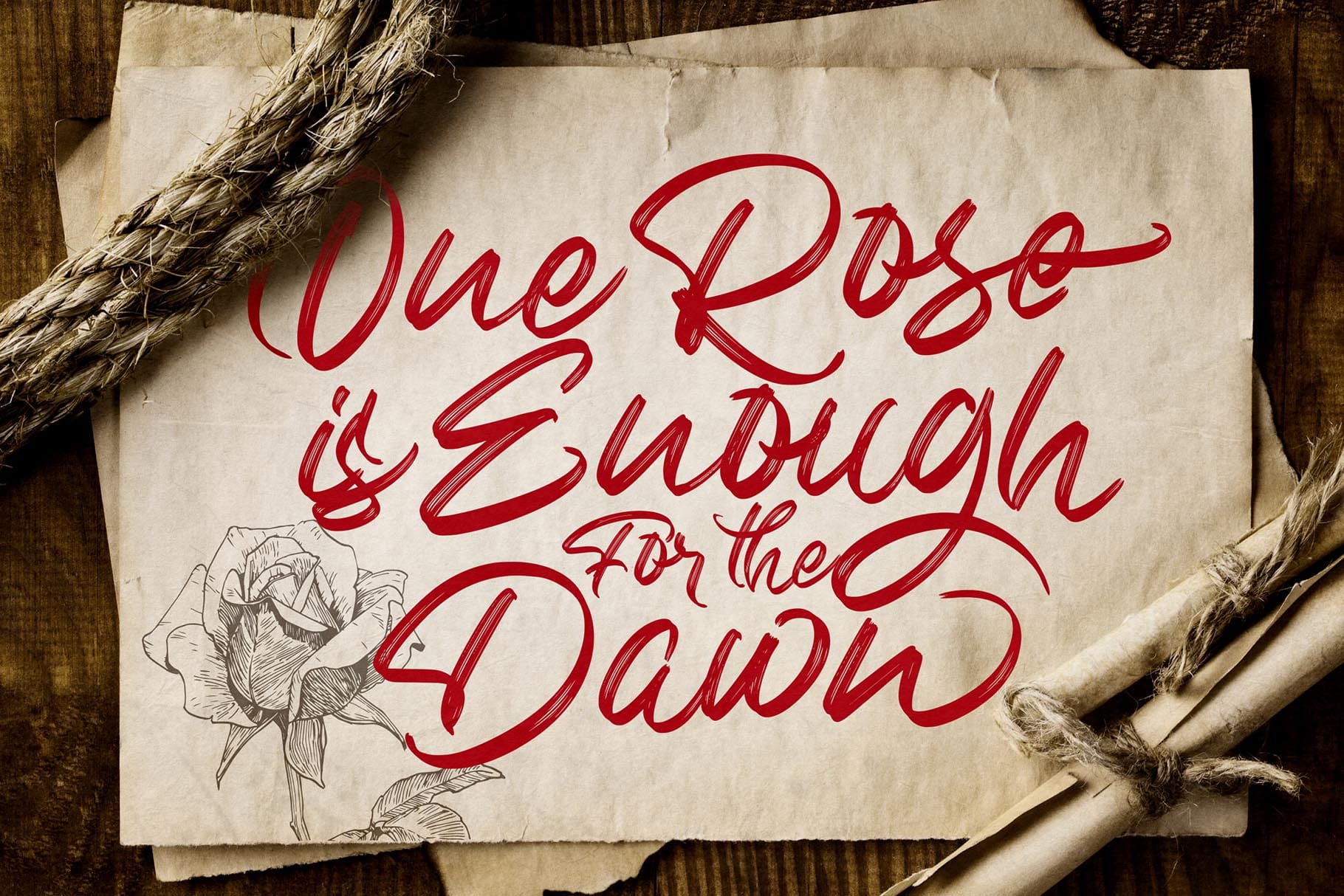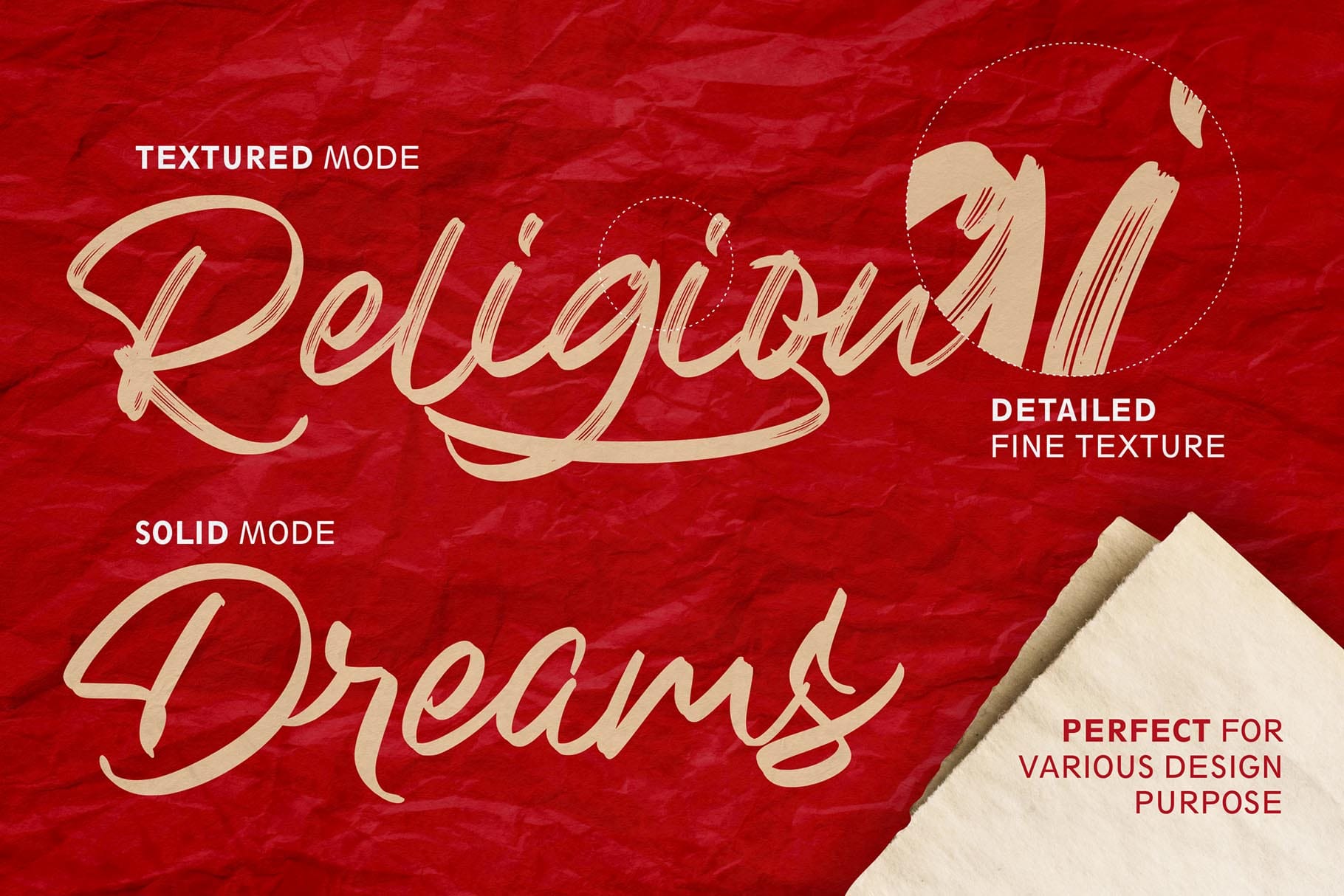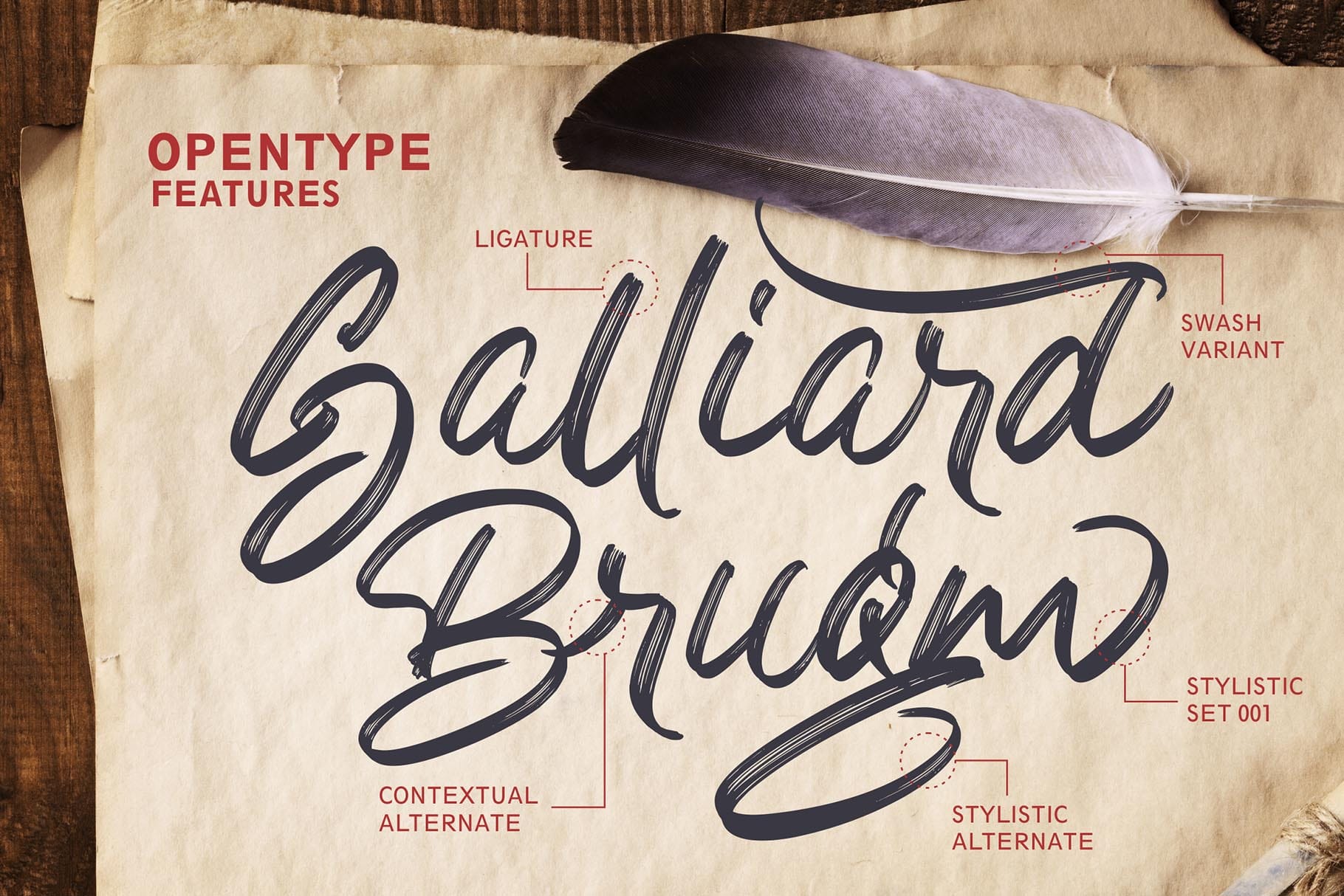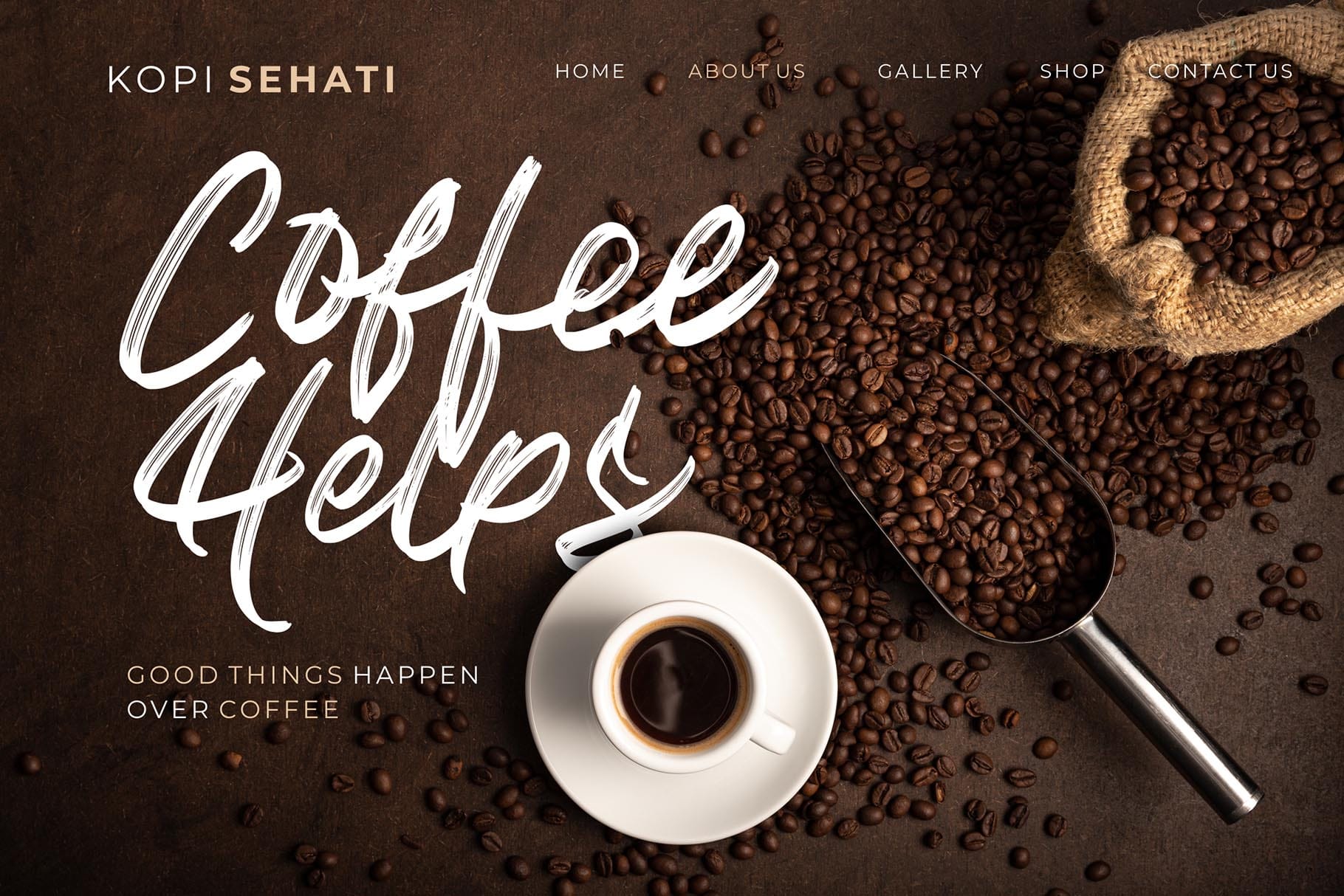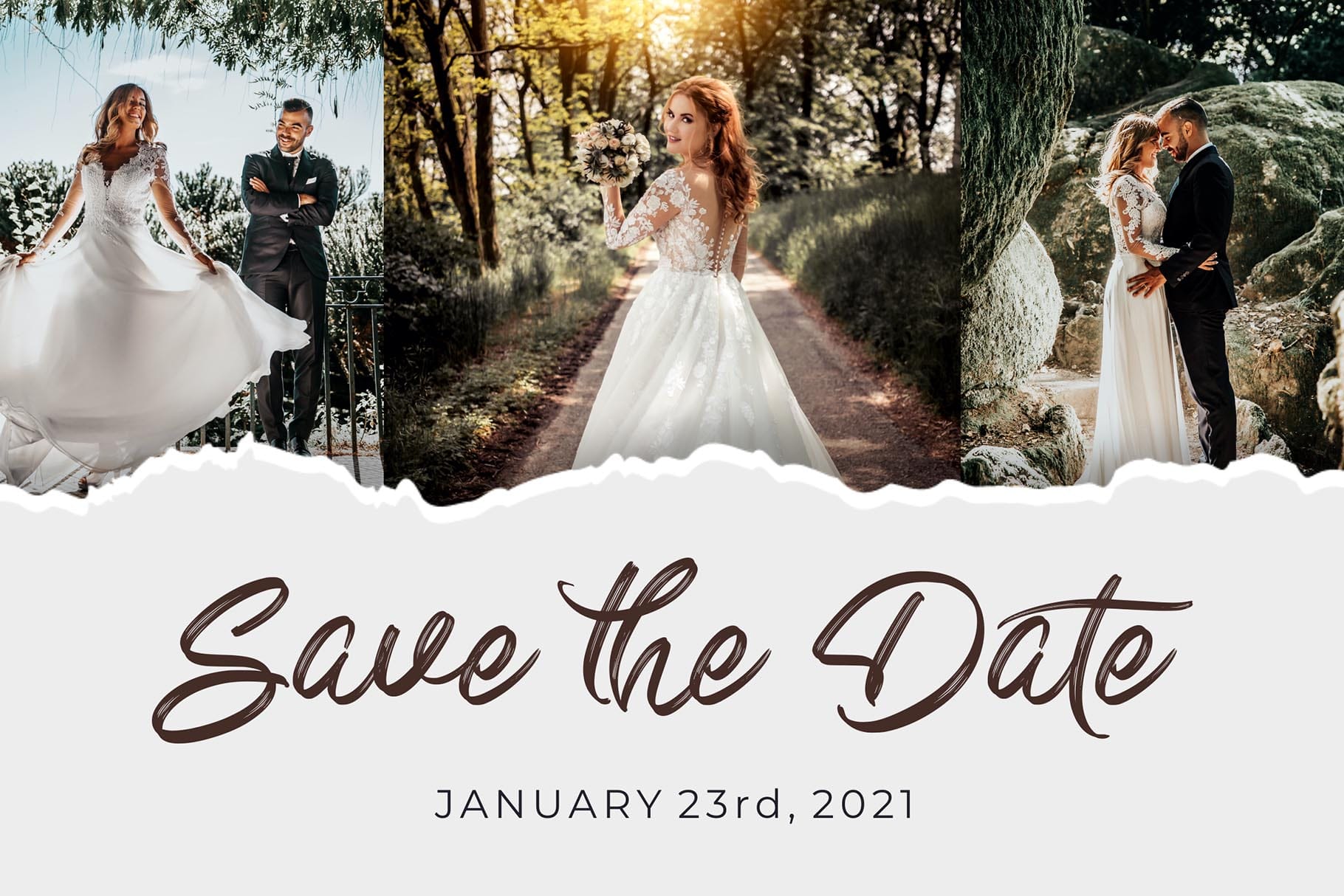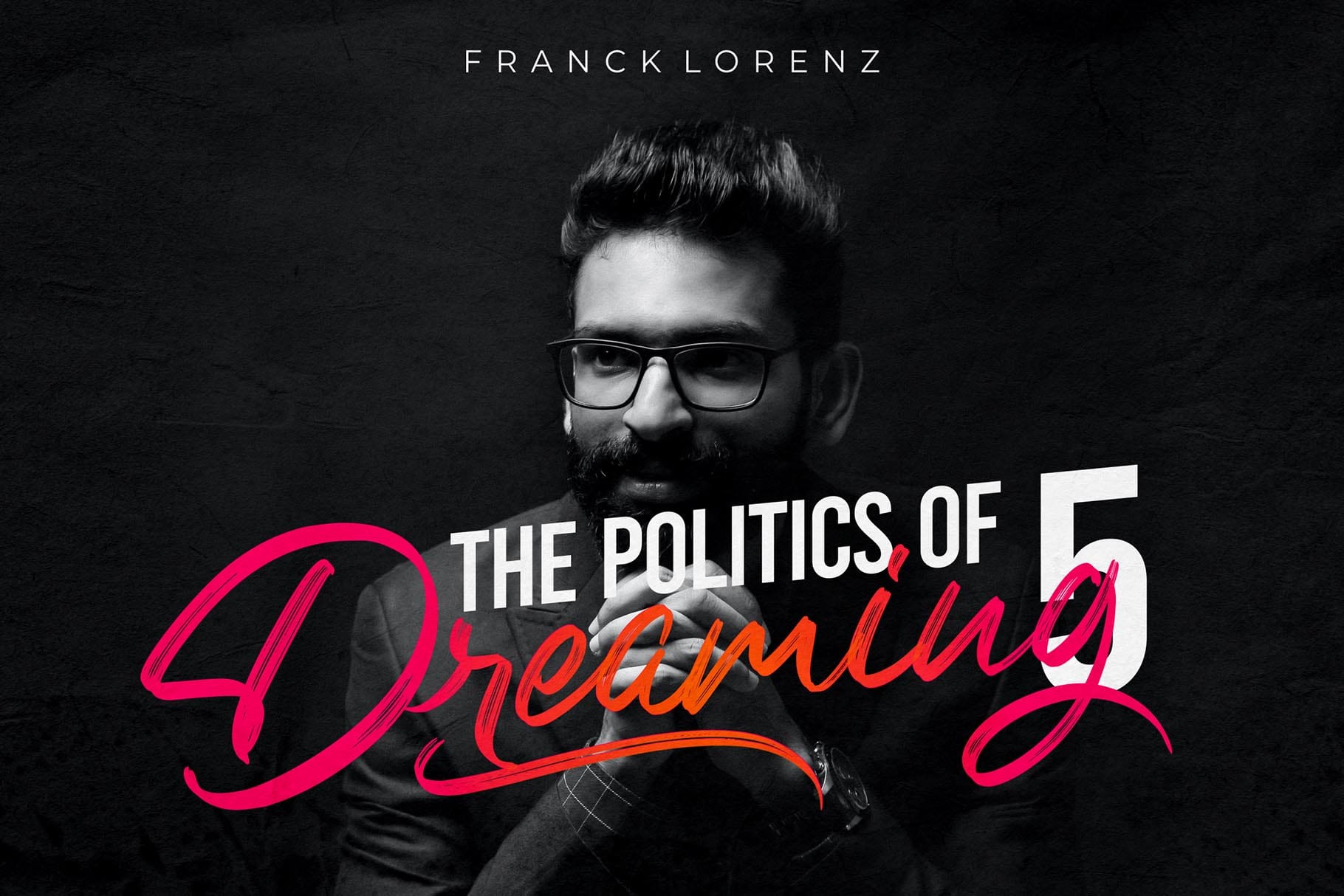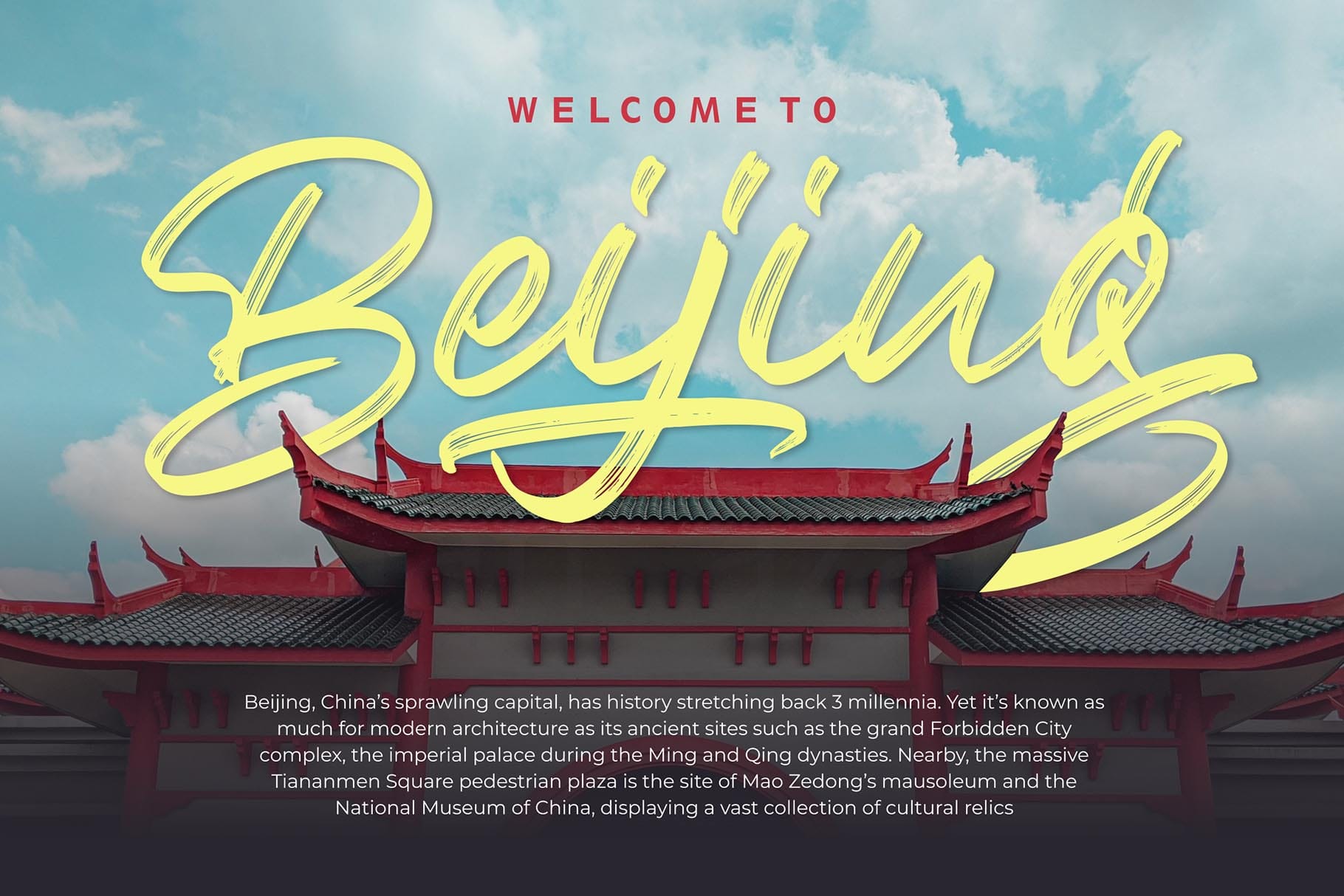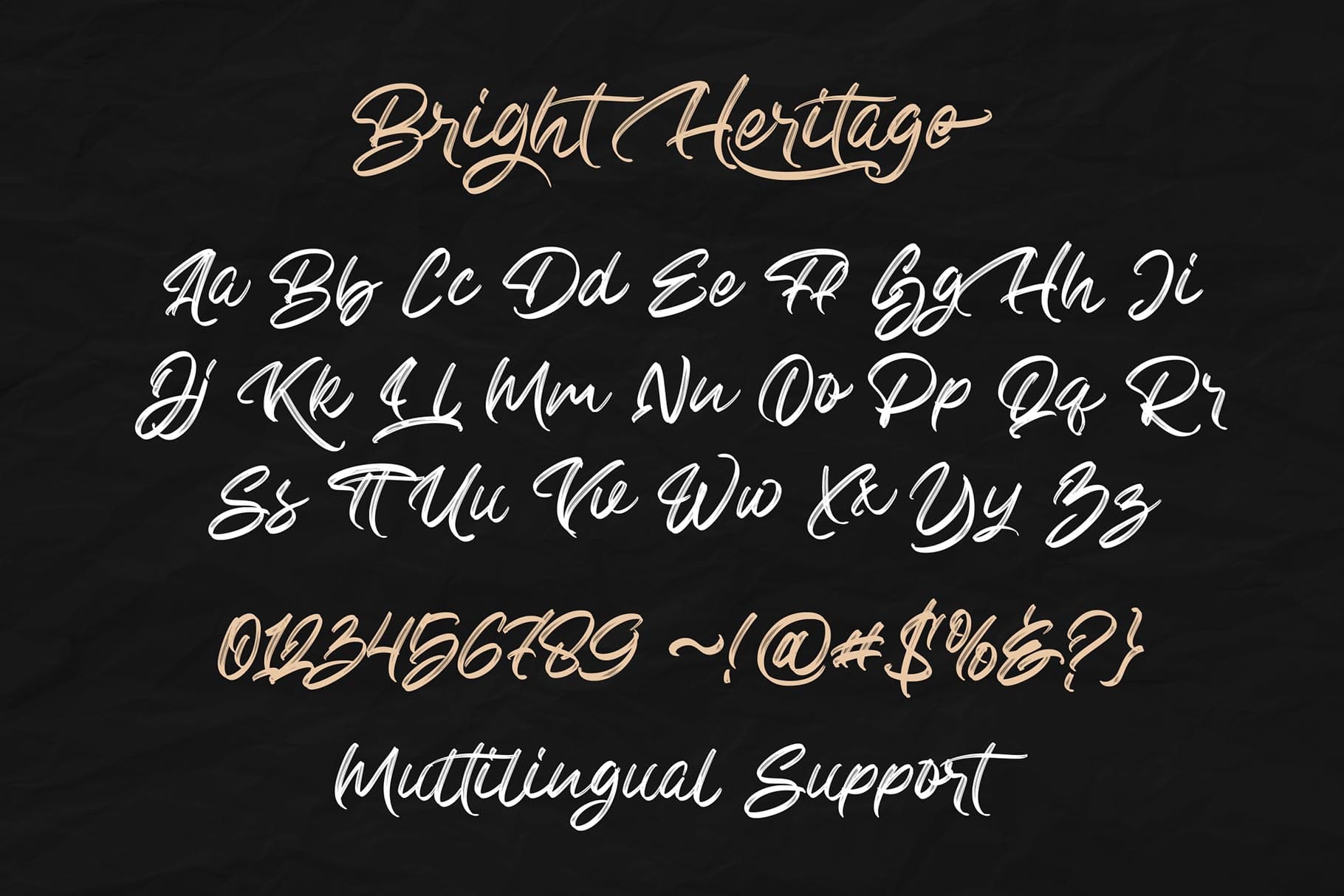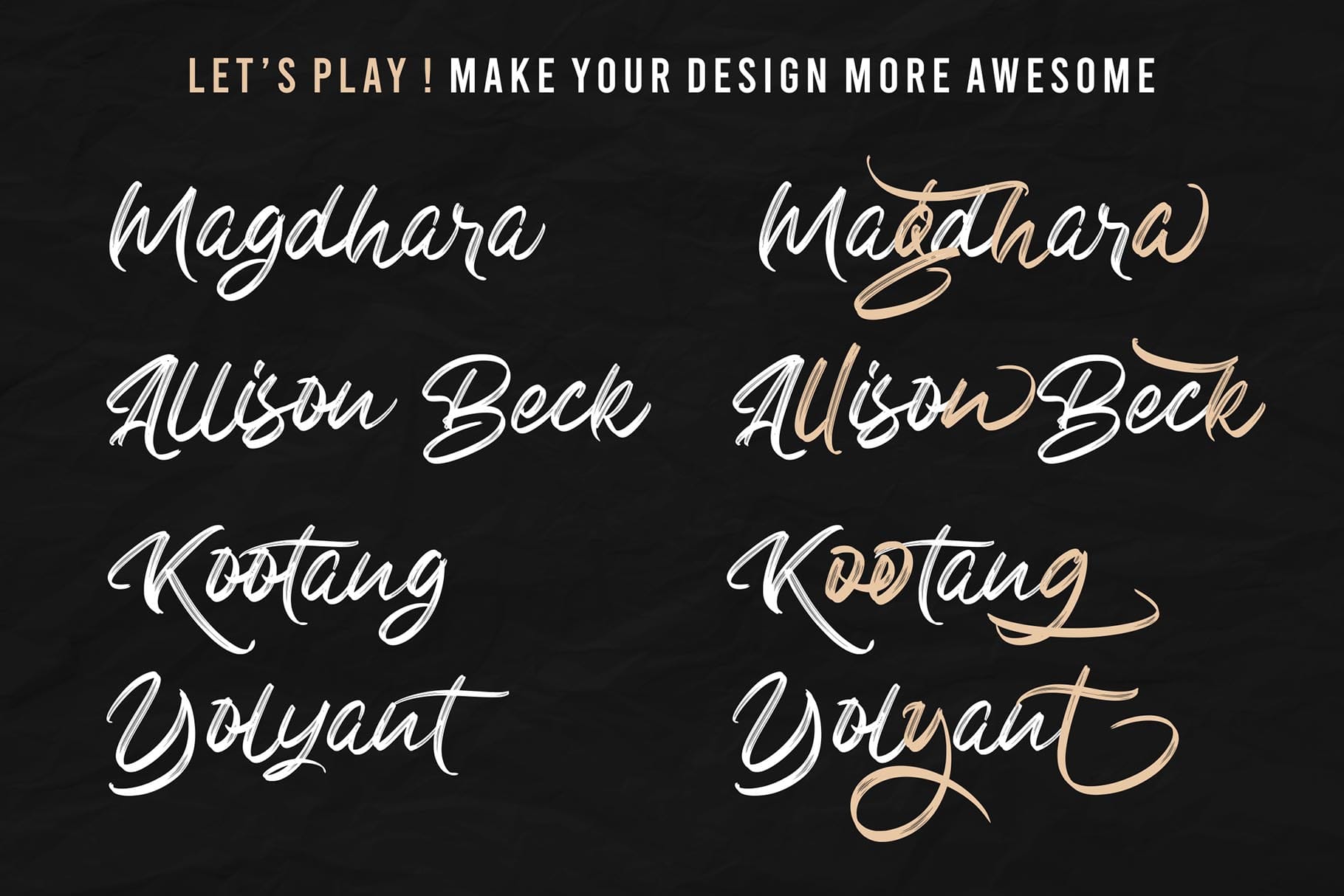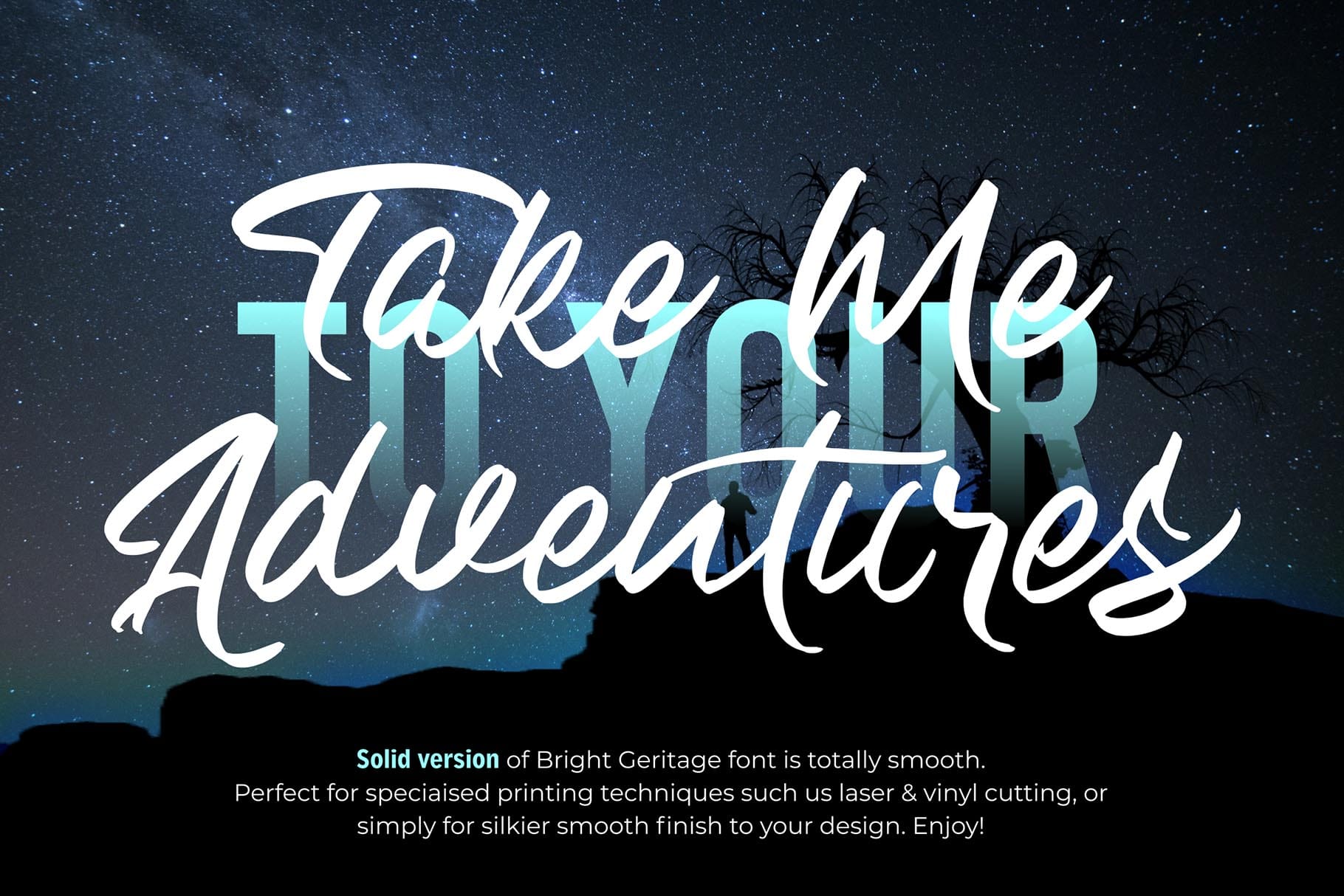
Bright Heritage
Introducing, Bright Heritage!
The Bright Heritage is strong hand-drawn brush font that combines attractive curves with a fresh urban edge; delivering a stylish brush font that is guaranteed to add an eye-catching appeal to your logo designs, brand imagery, handwritten quotes, product packaging, merchandise, social media post, or website font.
• Uppercase and Lowercase
• Number and Punctuation
• Opentype Features
• Versatile for branding, headline, or printing product